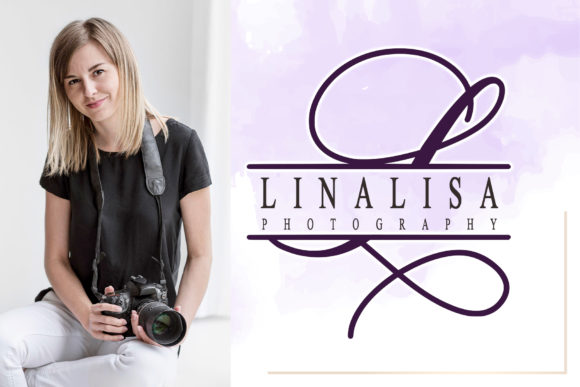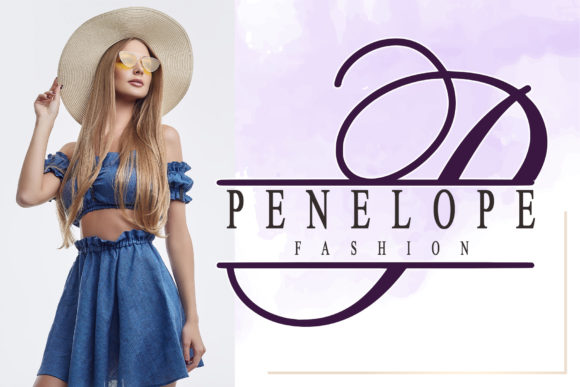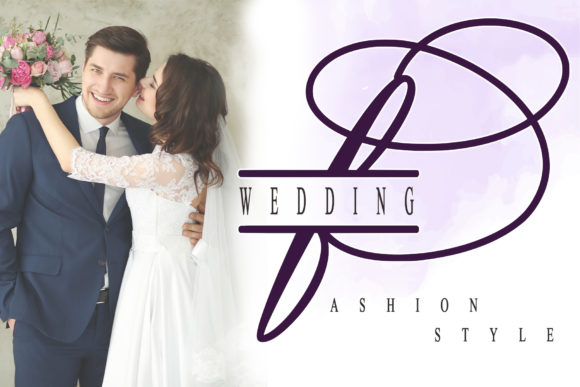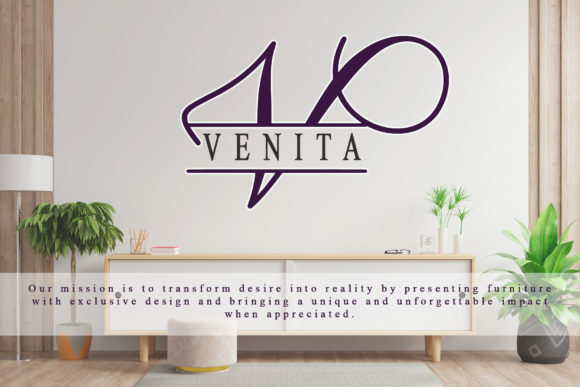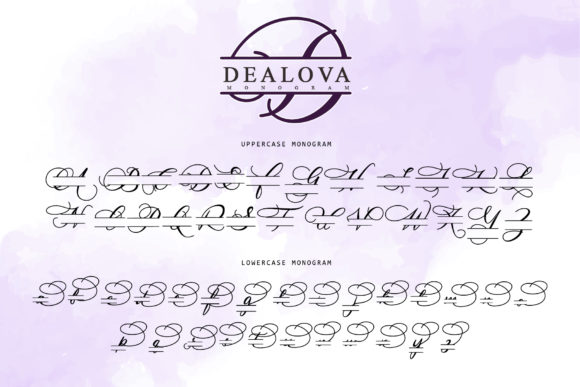
Introducing Dealova Monogram Font: Elevate Your Designs with Elegance
Are you on the lookout for a font that exudes modern elegance and sophistication? Look no further than the Dealova Monogram Font. This stunning monogram font is designed to bring a touch of authenticity and style to your designs, making it perfect for a wide range of creative projects. From wedding invitations and stationery to social media posts and greeting cards, Dealova Monogram is sure to impress.
What Makes Dealova Monogram Font So Special?
Dealova Monogram Font boasts a modern feel that is both fresh and timeless. Its unique design elements are carefully crafted to provide an authentic look that will make your creations stand out from the crowd. Whether you’re a designer, crafter, or DIY enthusiast, this gorgeous monogram font is sure to inspire your next project.
Endless Design Possibilities with Dealova Monogram
One of the best things about Dealova Monogram Font is its versatility. This beautiful font can be used to create a wide range of designs, including:
- Wedding Invitations: Make your wedding stationery truly unforgettable with Dealova Monogram. Its elegant design is perfect for creating beautiful wedding invitations, save-the-date cards, and more.
- Stationery Art: Add a touch of sophistication to your stationery with Dealova Monogram. Use it to create gorgeous notecards, journals, and other paper crafts.
- Social Media Posts: Take your social media game to the next level with Dealova Monogram. Use this stunning font to create eye-catching graphics, quotes, and other engaging content.
- Greeting Cards: Make your greeting cards truly special with Dealova Monogram. Whether it’s a birthday, anniversary, or holiday card, this font is sure to impress.
Bring Your DIY Projects to Life with Dealova Monogram
Dealova Monogram Font is not just for designers and crafters – it’s also perfect for DIY enthusiasts. Whether you’re looking to create custom signs, decor, or other home decor projects, this gorgeous monogram font is sure to bring your ideas to life.
With Dealova Monogram, you can:
- Create custom wall art and signs
- Design beautiful DIY decor for your home
- Make unique gifts for friends and family
- Add a personal touch to your scrapbooking and journaling projects
Why Choose Dealova Monogram Font?
So why choose Dealova Monogram Font for your next project? Here are just a few reasons:
- Unique Design: Dealova Monogram Font boasts a unique and modern design that will make your creations stand out.
- Elegant and Sophisticated: This font exudes elegance and sophistication, making it perfect for wedding invitations, stationery, and other formal designs.
- Versatile: This font can be used for a wide range of projects, from digital designs to print materials.
Get Ready to Fall in Love with Dealova Monogram Font
If you’re looking for a font that will elevate your designs and bring a touch of elegance to your projects, look no further than Dealova Monogram Font. With its modern feel, authentic look, and versatility, this gorgeous monogram font is sure to become a favorite in your design arsenal.